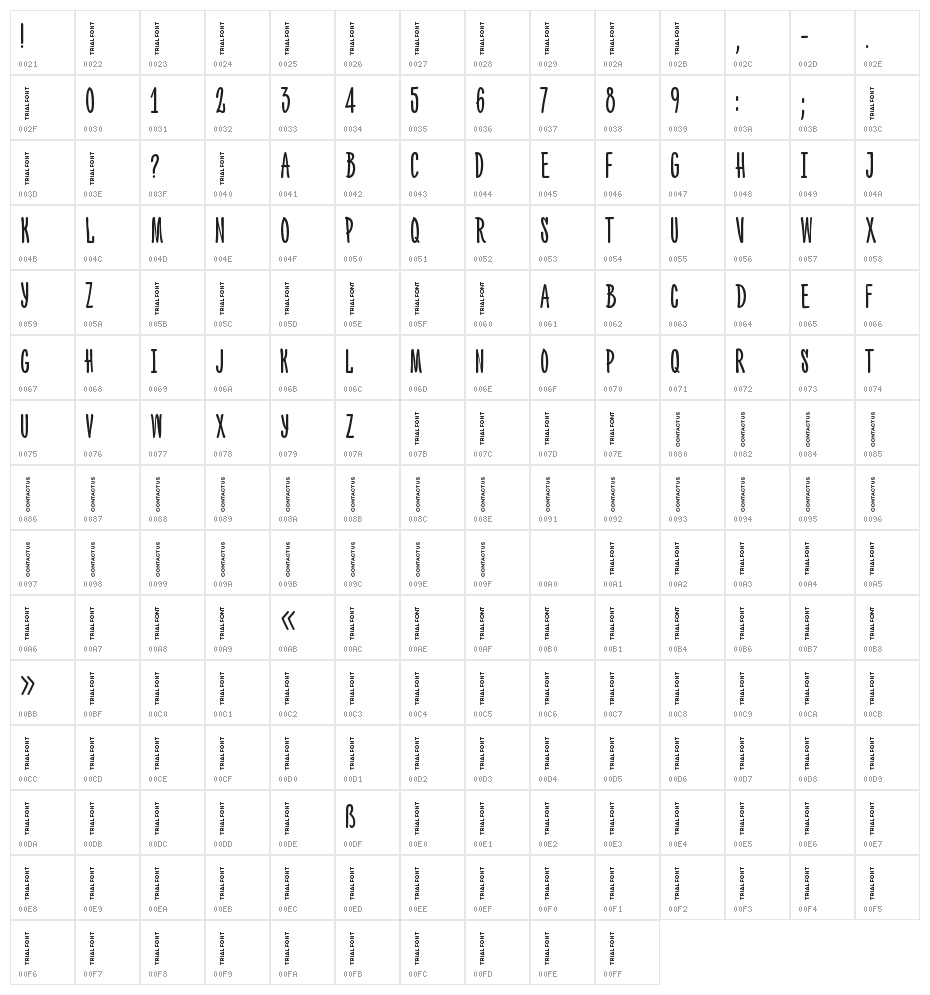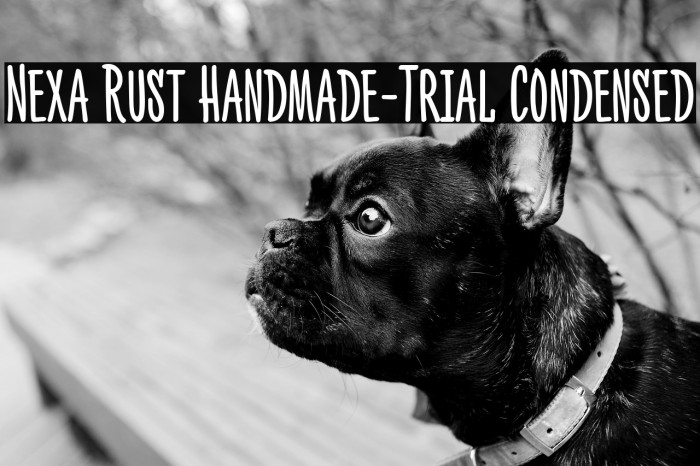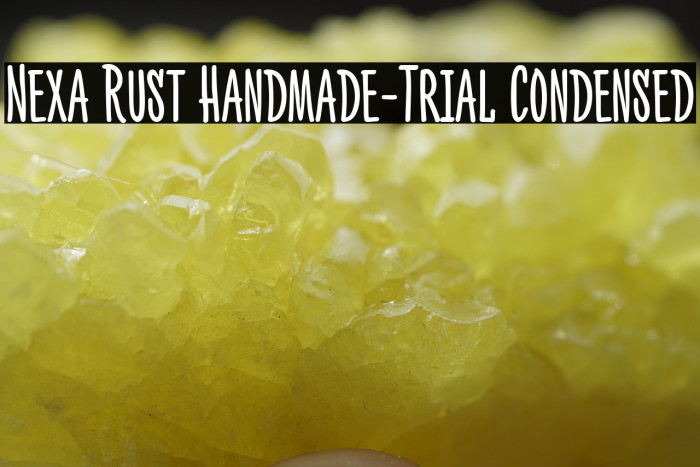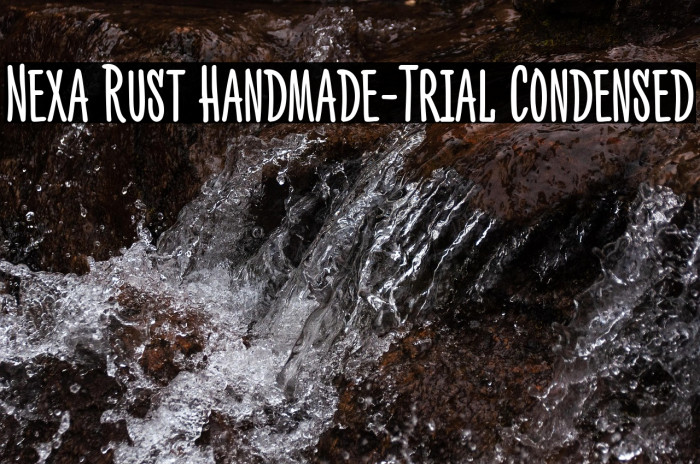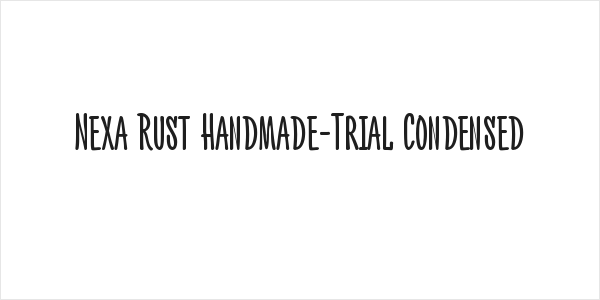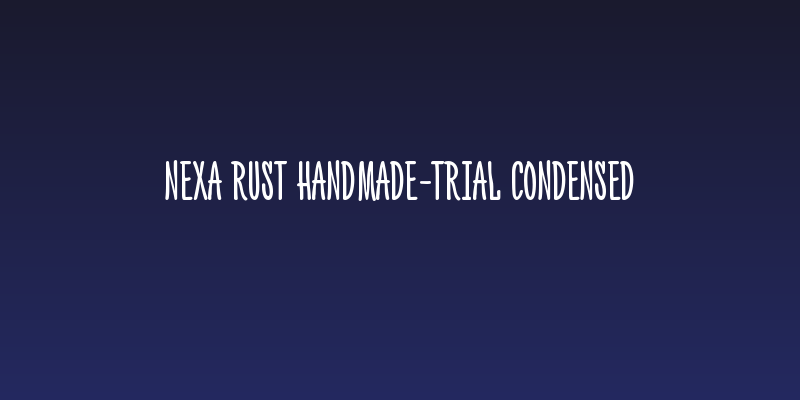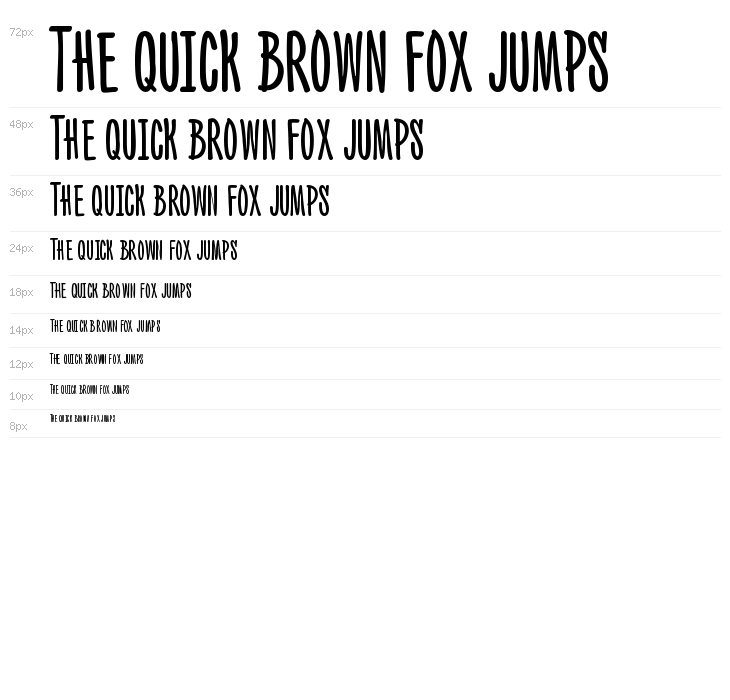
Nexa Rust Handmade-Trial Condensed Font
Nexa Rust Handmade-Trial Condensed Description
This font features a handmade, rustic style with a condensed form, giving it a unique and personal touch. The characters have a playful and slightly irregular appearance, which adds to its charm. The uppercase and lowercase letters are well-balanced, with a consistent stroke width that maintains readability. The numbers and special characters complement the overall design, making it versatile for various applications. Its handcrafted look is perfect for projects that require a personal or vintage feel.
| Use Case | Logos, Posters, Branding |
| Proposed Projects | Ideal for branding, packaging, posters, and any design project that seeks a handcrafted or vintage aesthetic. |